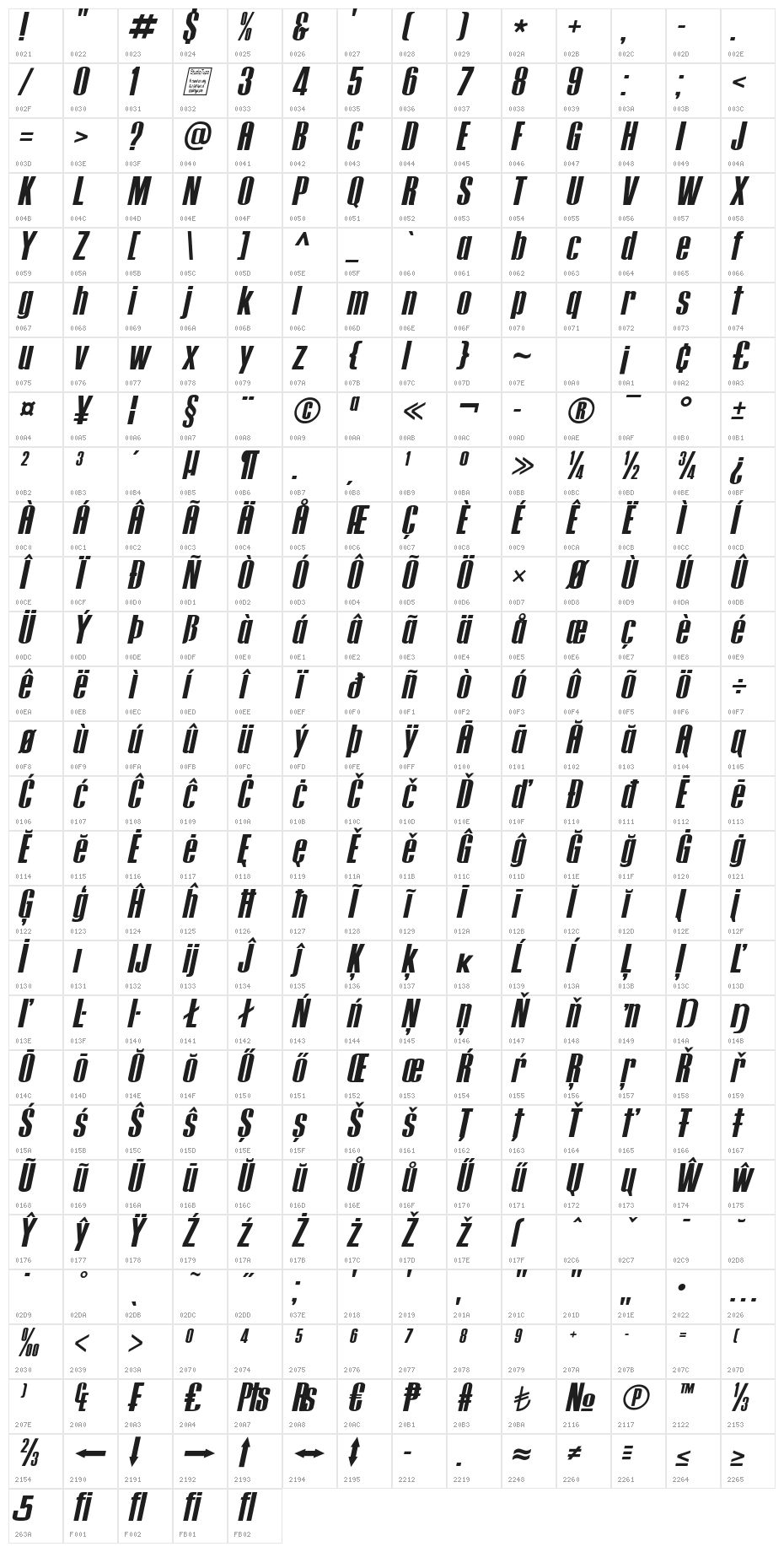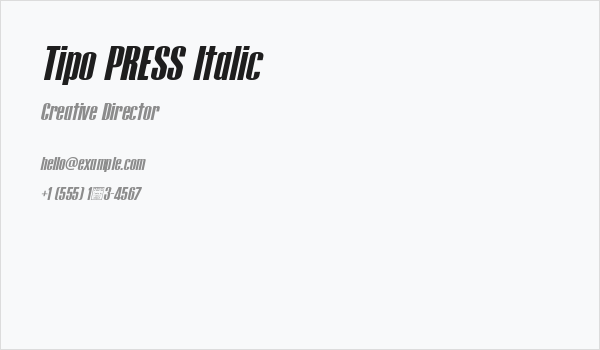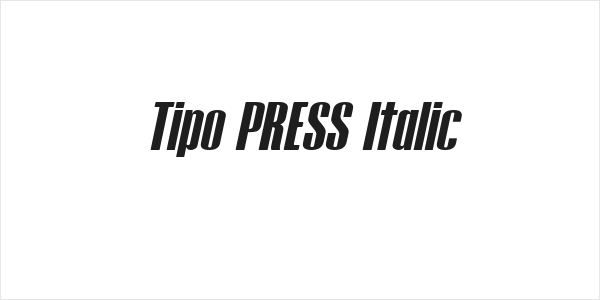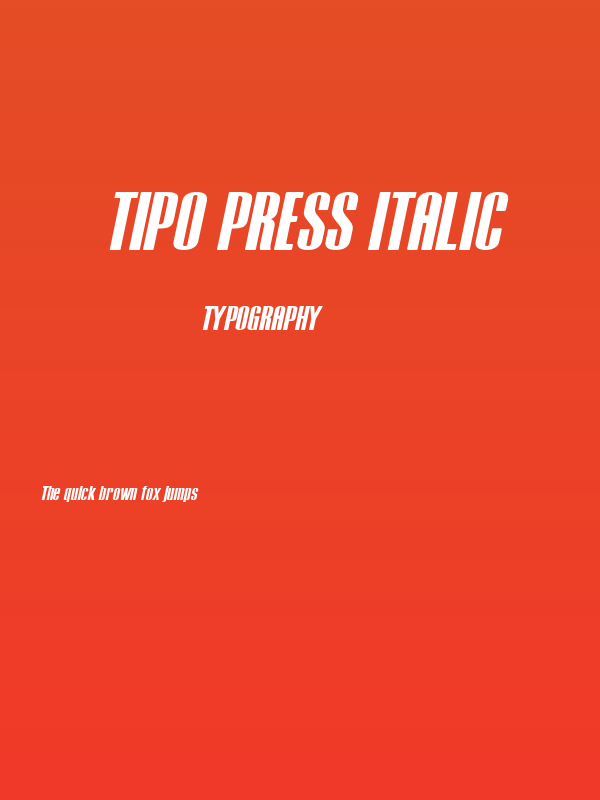
Tipo PRESS Italic Font
Tipo PRESS Italic Description
This font features a bold and dynamic italic style with a strong presence. The characters are tightly spaced, creating a sense of urgency and movement. The uppercase and lowercase letters are consistent in their slant, enhancing the italic effect. The numbers and special characters maintain the same boldness and slant, ensuring uniformity across all elements. The font's high contrast in stroke thickness adds to its impactful appearance, making it suitable for attention-grabbing designs.